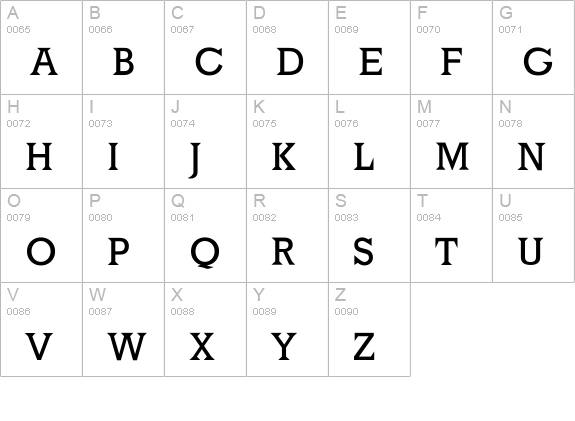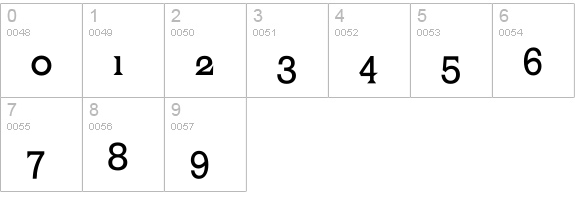
MkLatinoPlain Font Details
MkLatinoPlain font is a versatile and stylish typeface that combines modern elegance with a touch of classic charm. With its clean lines and smooth curves, this font is perfect for any project that requires a sophisticated and refined aesthetic. What sets MkLatinoPlain font apart is its unique ability to convey a sense of professionalism and creativity simultaneously. Whether you're designing a logo, creating a website, or crafting a marketing campaign, this font will add a touch of sophistication to your work that will impress clients and captivate audiences. One of the best things about MkLatinoPlain font is that it is free to download. You can easily access this font at FontsMarket.com, where it is readily available for anyone who wants to elevate their designs without breaking the bank. With just a few clicks, you can have this font at your disposal, ready to enhance your projects and make them truly stand out. The versatility of MkLatinoPlain font is truly remarkable. It can be used for a wide range of design purposes, from headlines and titles to body text and captions. Its legibility and readability make it an excellent choice for both print and digital media, ensuring that your message is delivered clearly and effectively. Whether you're a professional designer or simply someone who appreciates high-quality typography, MkLatinoPlain font is a must-have. Its combination of elegance, versatility, and affordability makes it a font that you'll find yourself turning to time and time again. So why wait? Download MkLatinoPlain font from FontsMarket.com today and let your creativity soar.